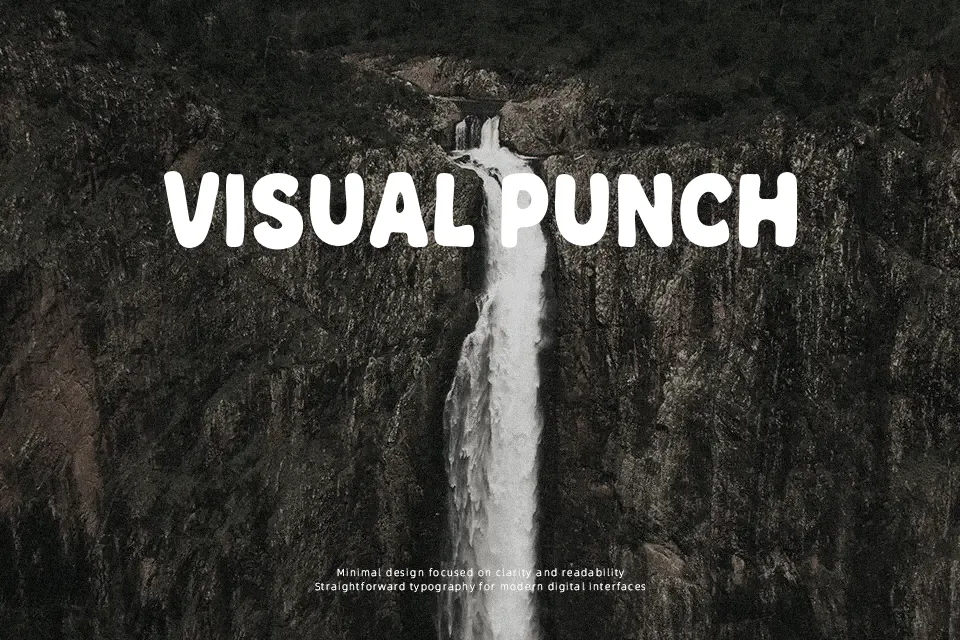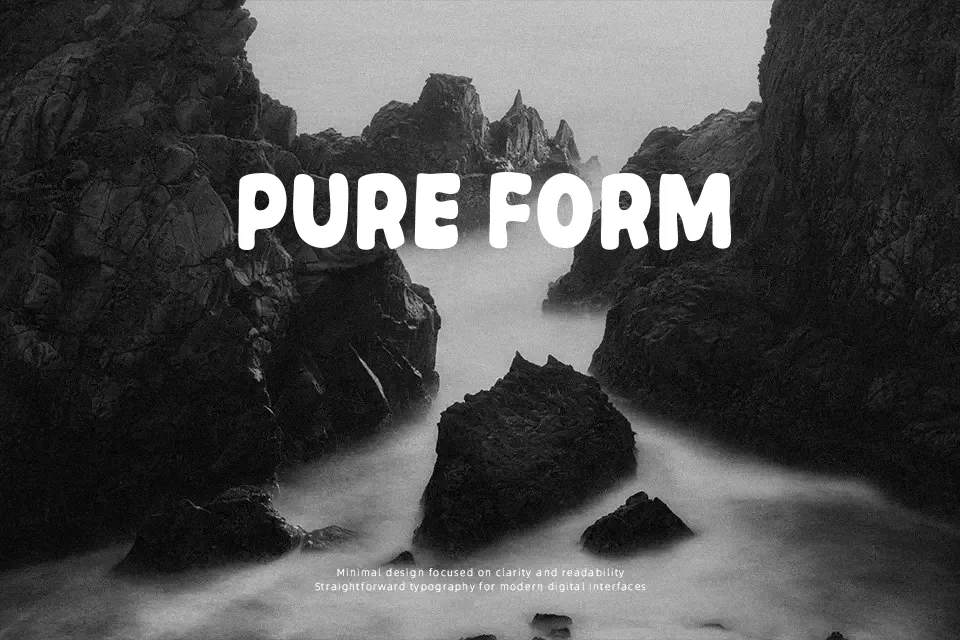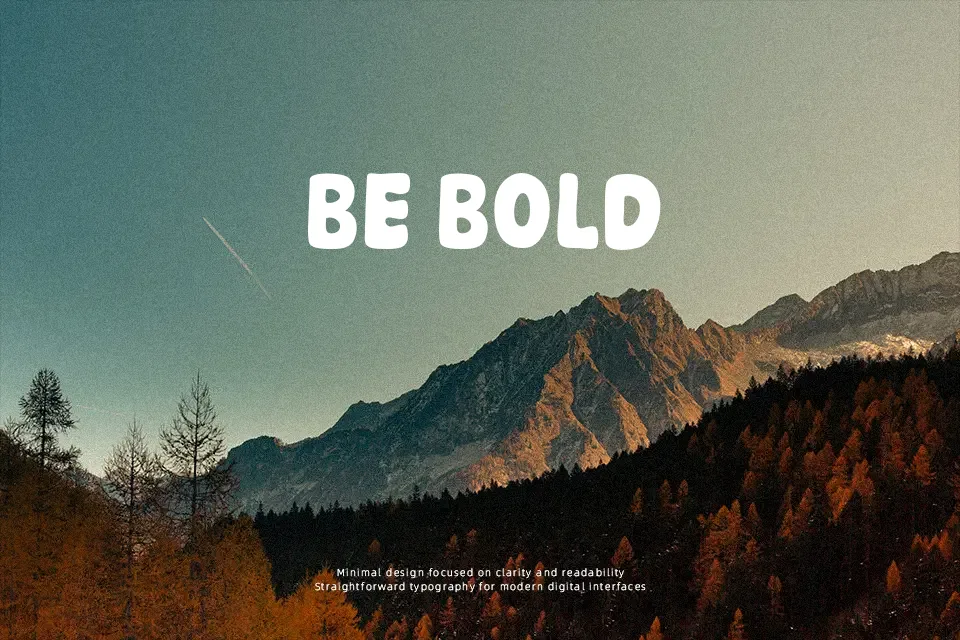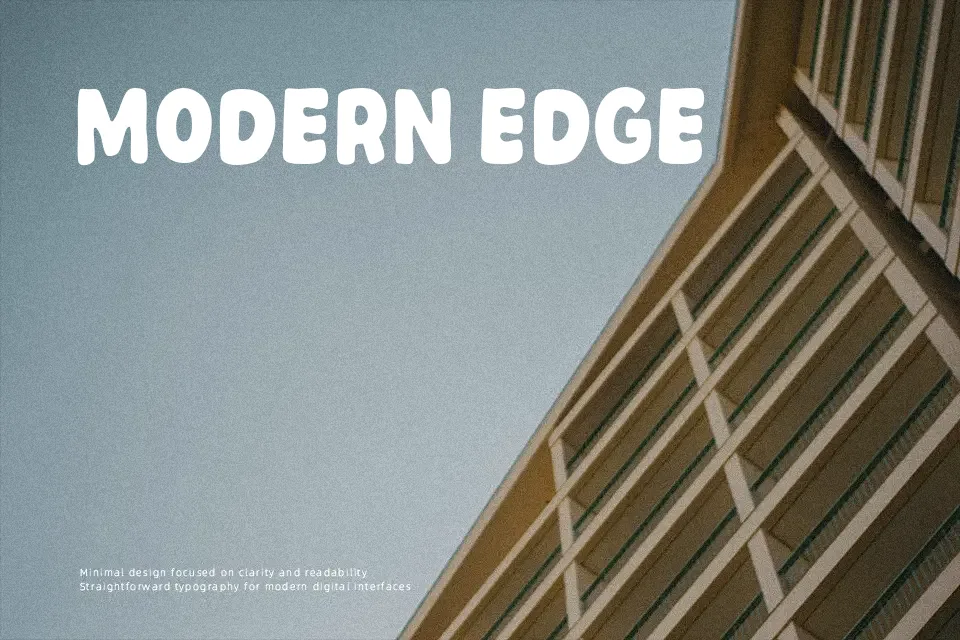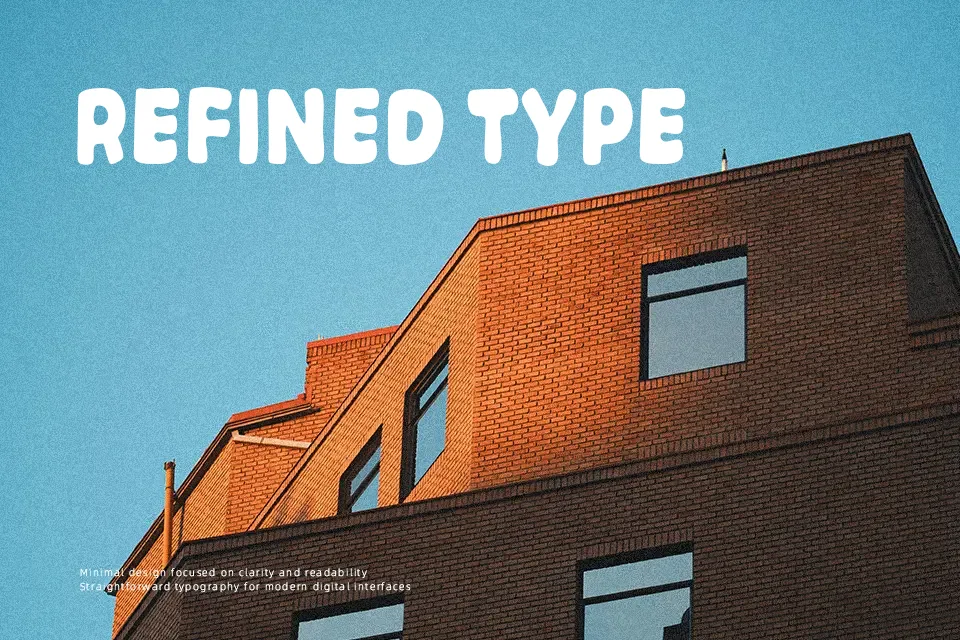
Selocity Font
Selocity Font delivers maximum visual presence through exaggerated weights, plump contours, and tightly knit letter spacing. The typeface features softened geometric curves and consistent stroke thickness that give each character a buoyant, comic aesthetic. Because the counters are compact and the outer contours are thick, the letterforms maintain exceptional legibility when rendered as massive headlines, apparel graphics, or animated title cards. However, the substantial density and snug kerning reduce comfort during continuous reading, making the design less suitable for extended body copy or compact interface labels. In large display settings, the bold styling brings a playful charm to informal projects.
Best For: children’s book covers, animated movie titles, toy packaging, casual mobile games
Not Ideal For: long paragraph text, editorial body copy, mobile app ui labels, corporate documents